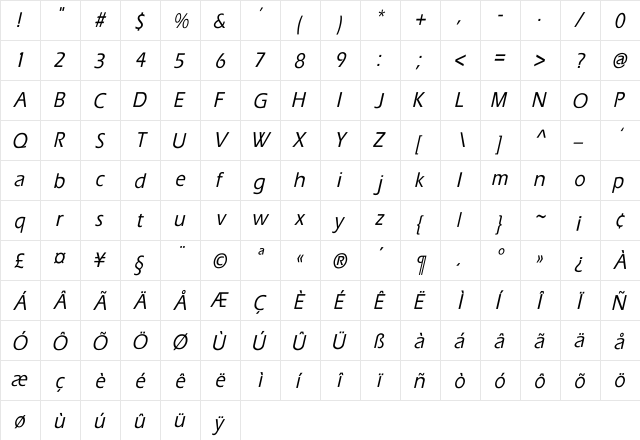
Eras-Medium-Medium Th Itc Italic
Design Context for Eras-Medium-Medium Th Itc Typeface
Eras-Medium-Medium Th Itc is a composed and adaptable typeface that performs quietly and consistently across a wide range of design contexts. Its italic angle brings a sense of urgency and motion to the letterforms.
Pro Tip: Use Eras-Medium-Medium Th Itc for emphasis, pull quotes, and subheadings where its slanted energy can add rhythm to the layout.